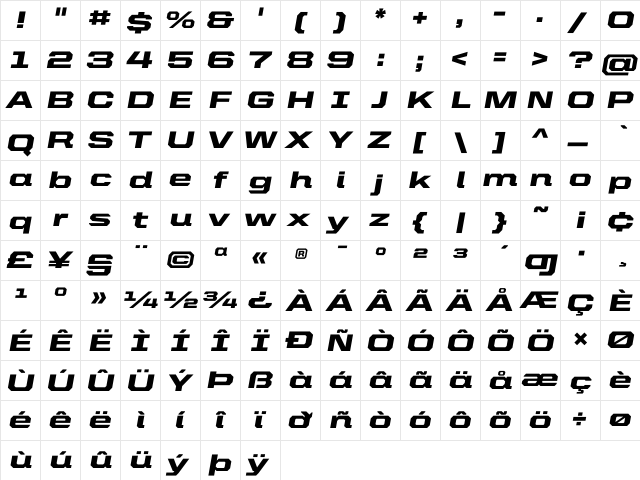
United Italic Ext Black
| Foundry | House Industries |
| Designer | Tal Leming |
Design Context for United Italic Ext Typeface
United Italic Ext is a composed and adaptable typeface that performs quietly and consistently across a wide range of design contexts. The dynamic lean of this cut emphasises speed and emphasis in any layout.
Pro Tip: Try United Italic Ext for annotation and caption copy alongside an upright companion — the contrast in angle creates a dynamic but ordered typographic system.